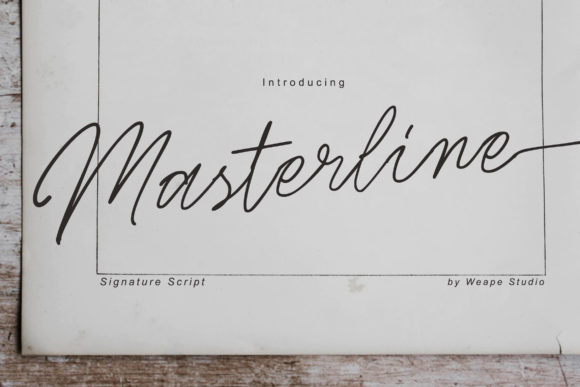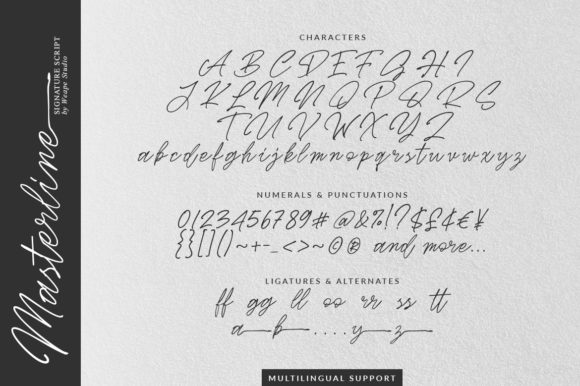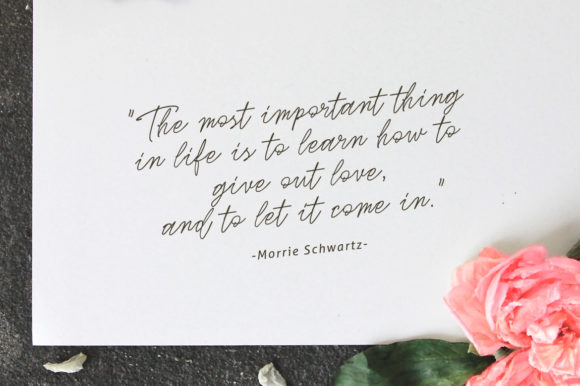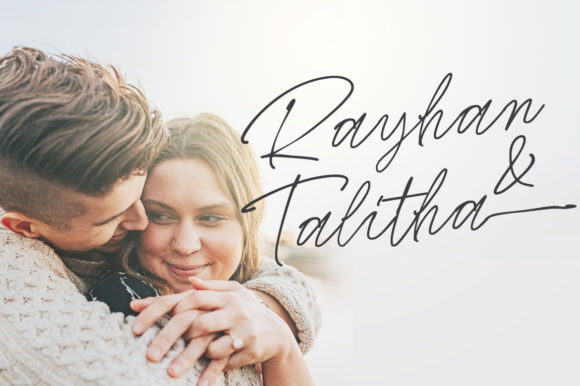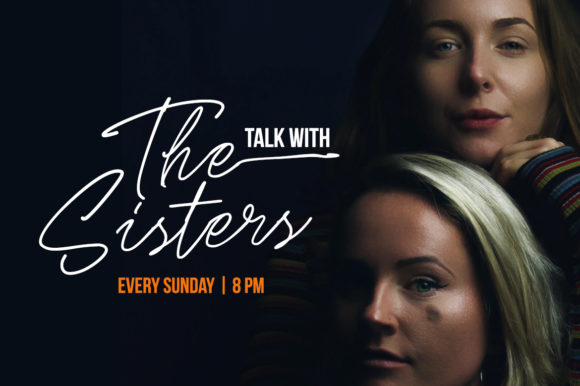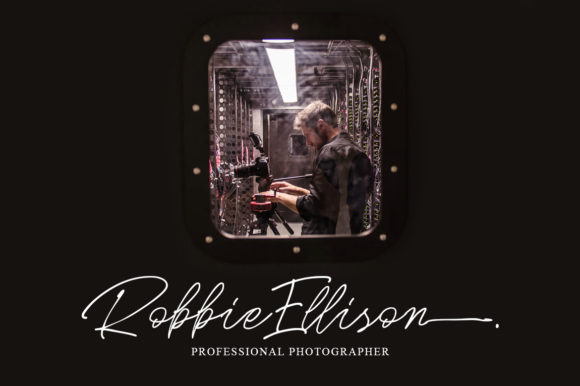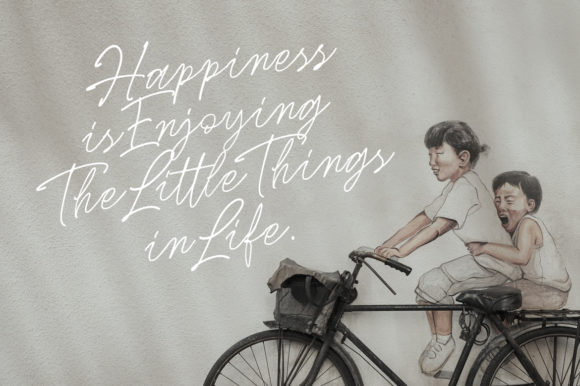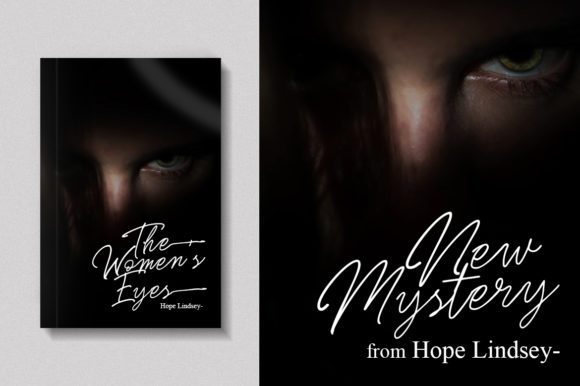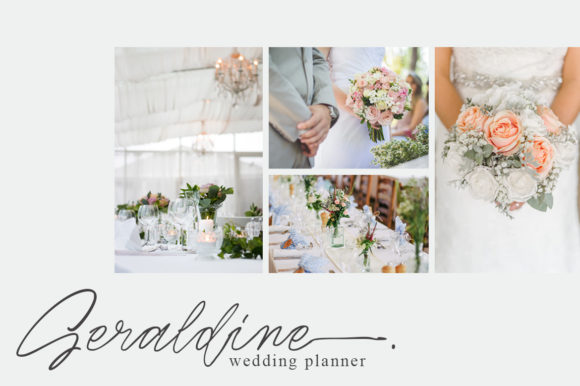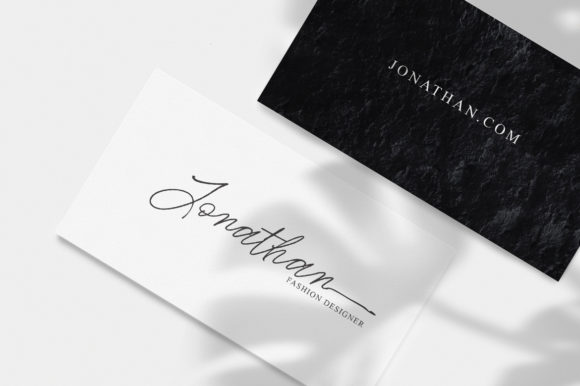
Masterline Font
About Masterline Font
Masterline is a stylish signature font. It features a varying baseline, smooth lines, gorgeous glyphs and stunning alternates. Masterline is the perfect font for making original and outstanding designs.